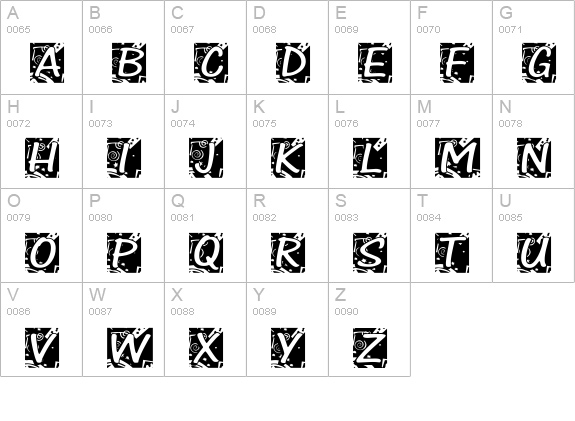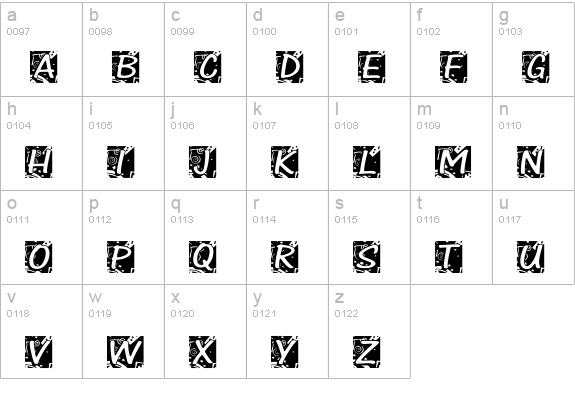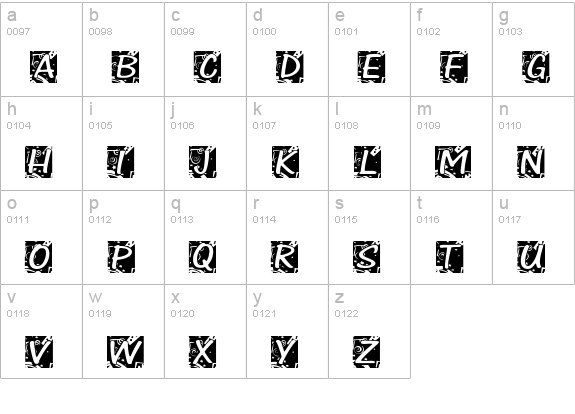
Chloe Confetti Font Details
Chloe Confetti font is a whimsical and playful typeface that exudes a sense of fun and celebration. With its unique blend of elegant curves and confetti-like splatters, this font is perfect for adding a touch of joy to any creative project. Whether you're designing invitations, greeting cards, or party decorations, Chloe Confetti font will bring a festive flair to your designs. Best of all, Chloe Confetti font is available for free download at FontsMarket.com. So go ahead and add a sprinkle of happiness to your next project with this delightful and charming font. Let your creativity shine with Chloe Confetti!